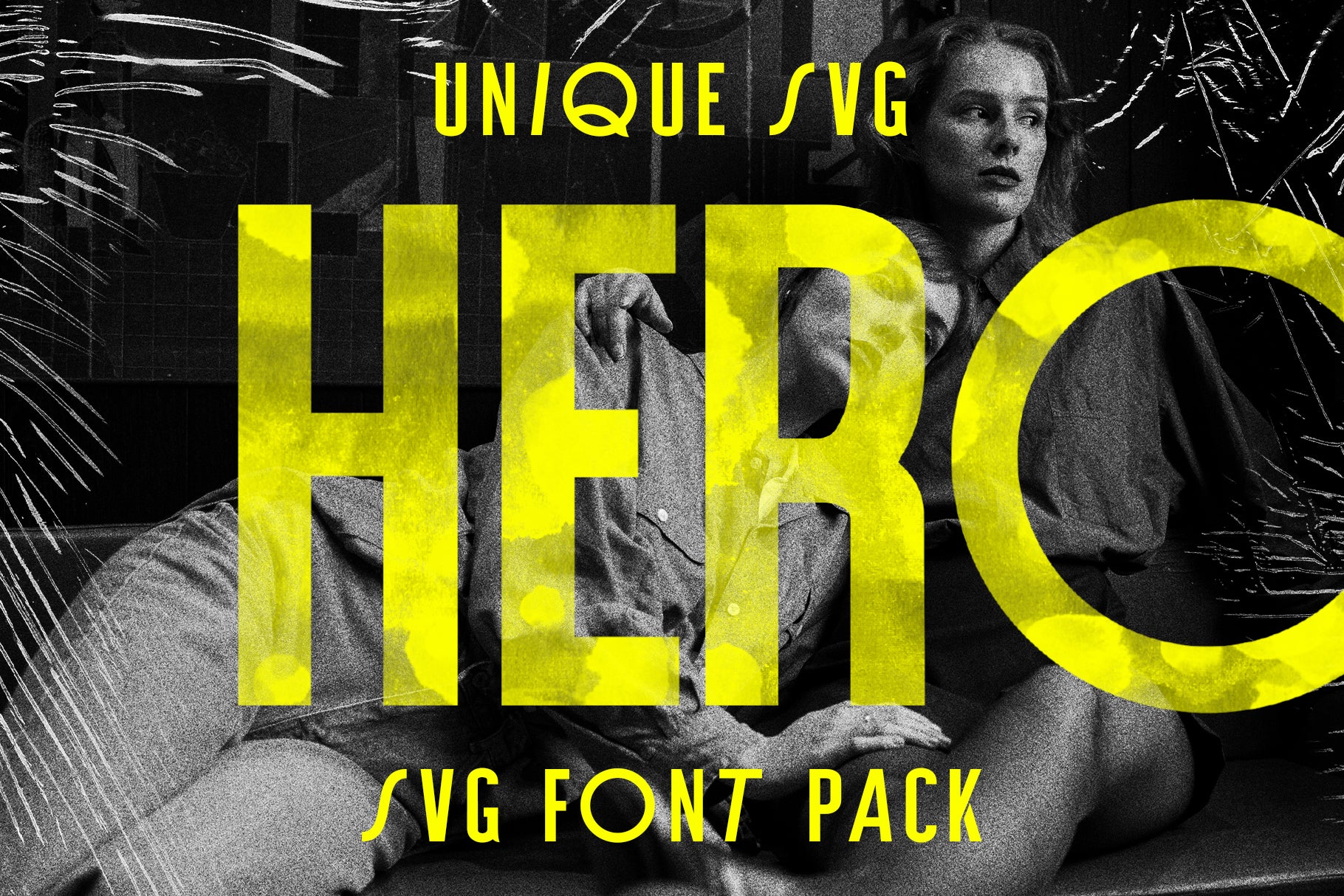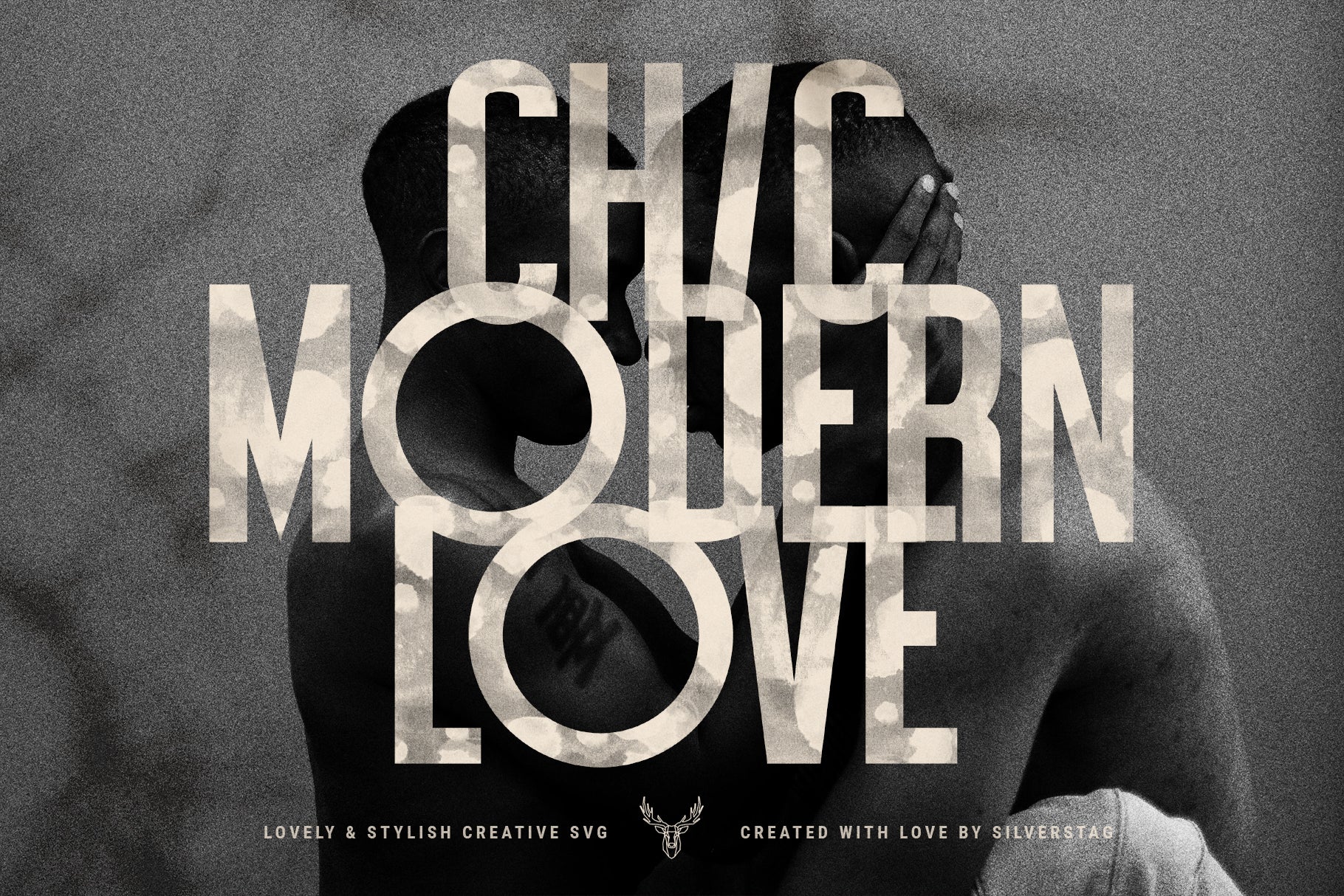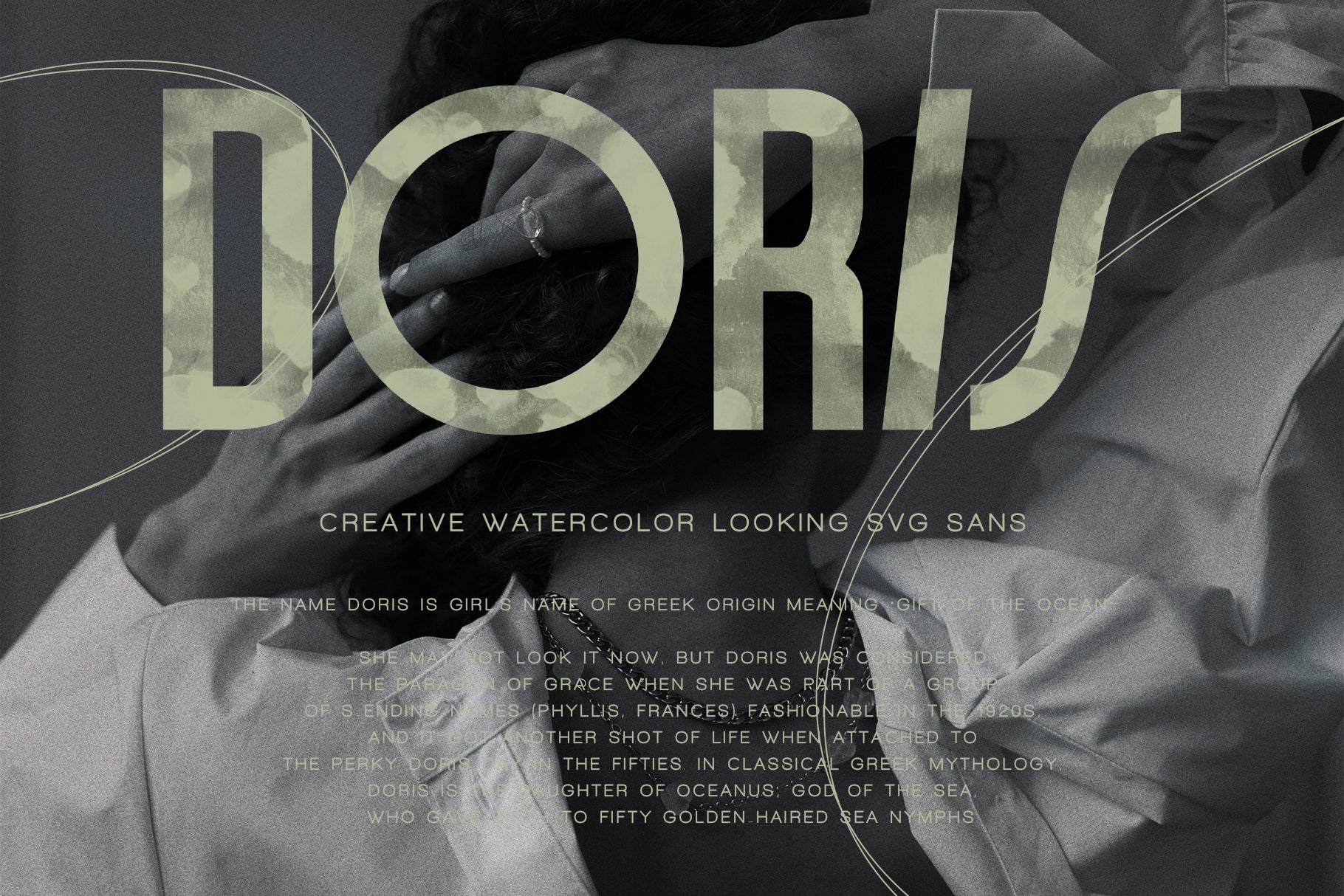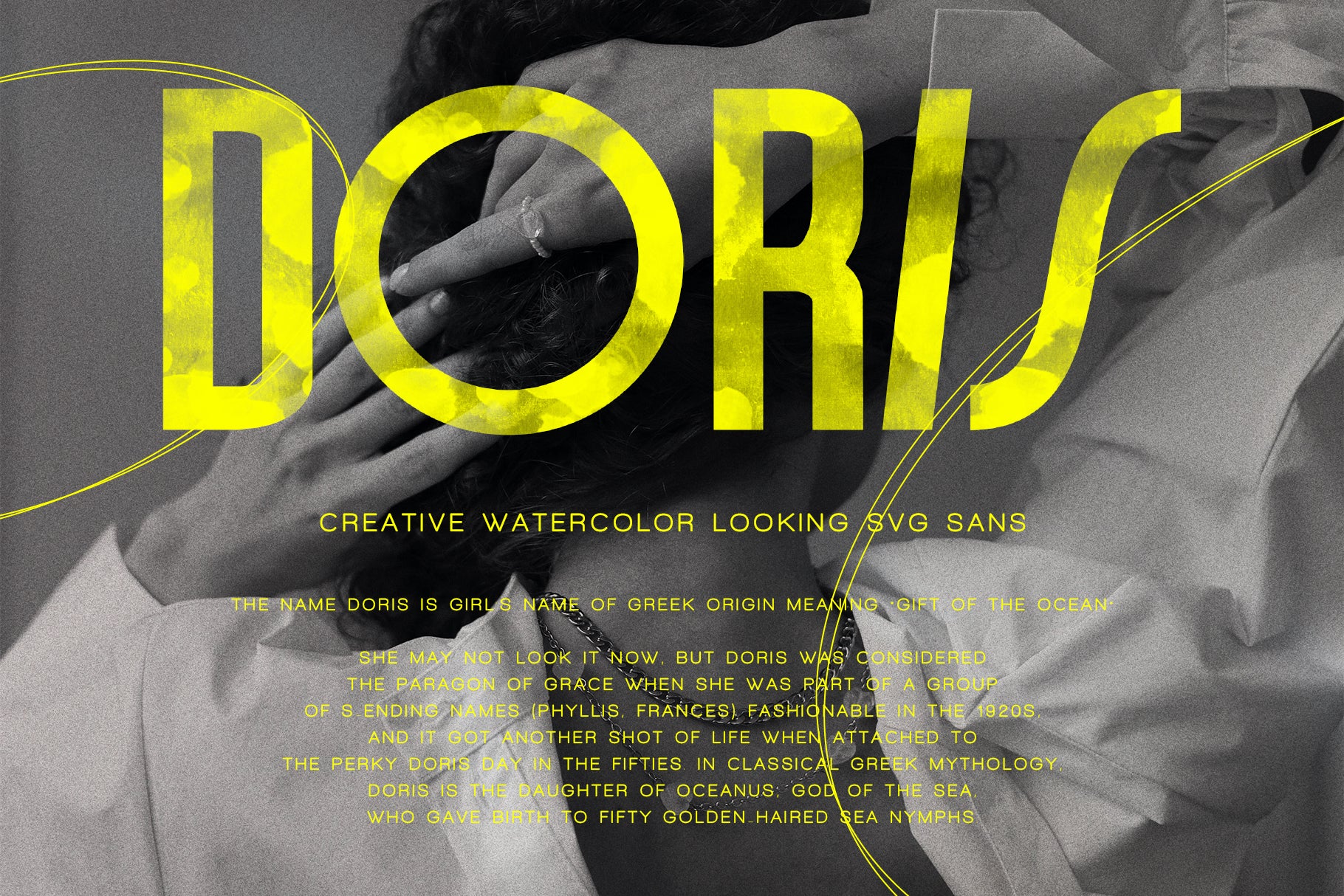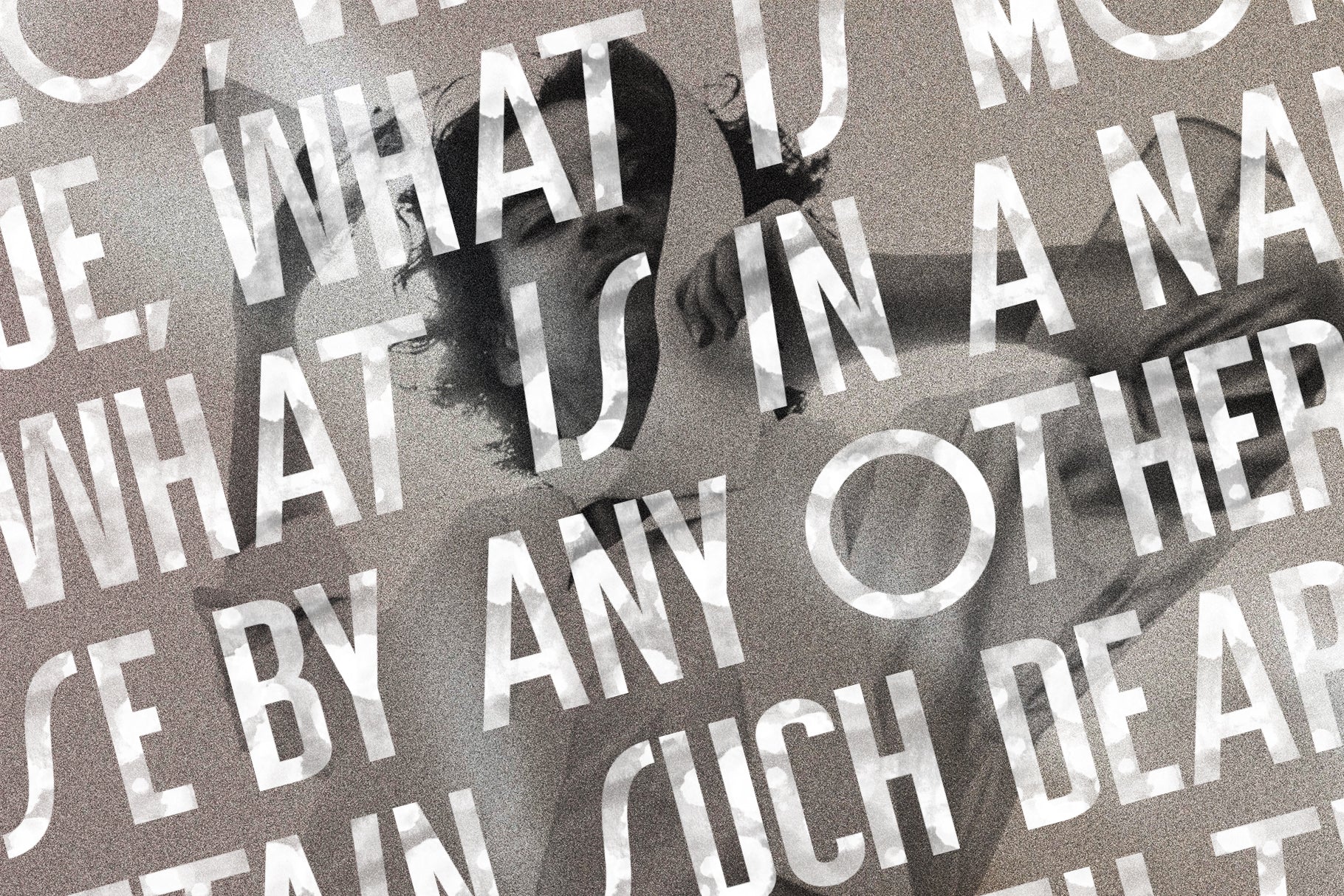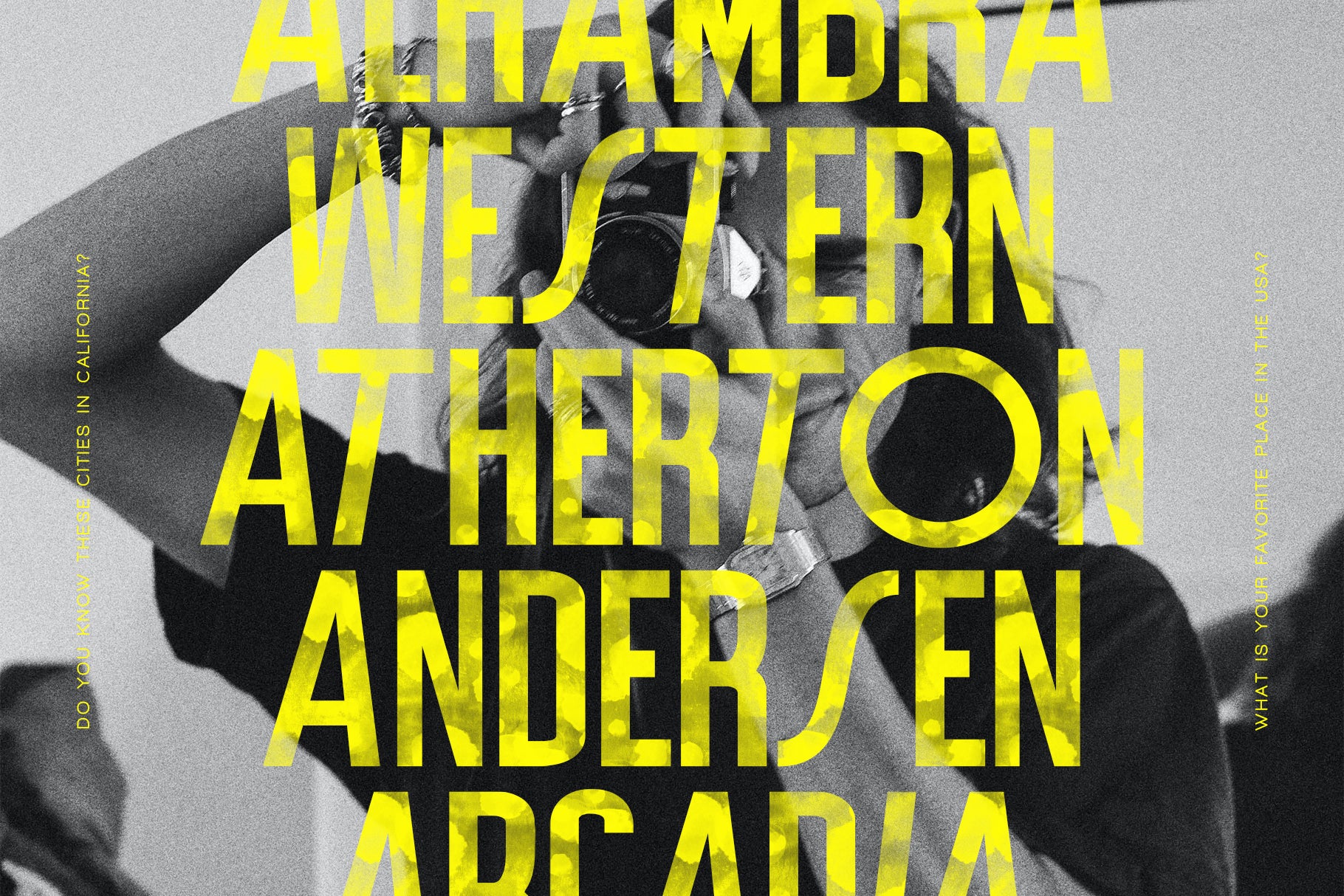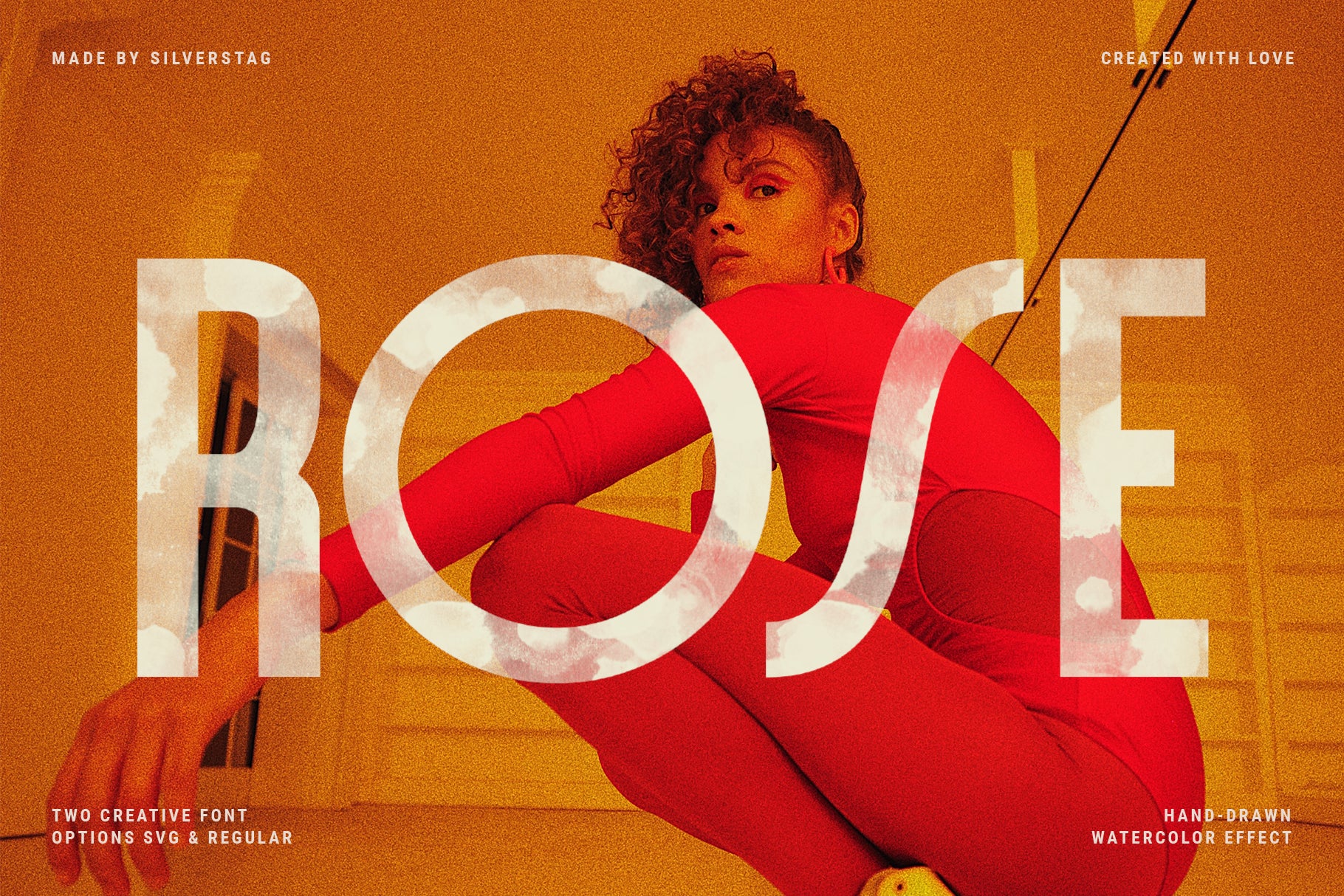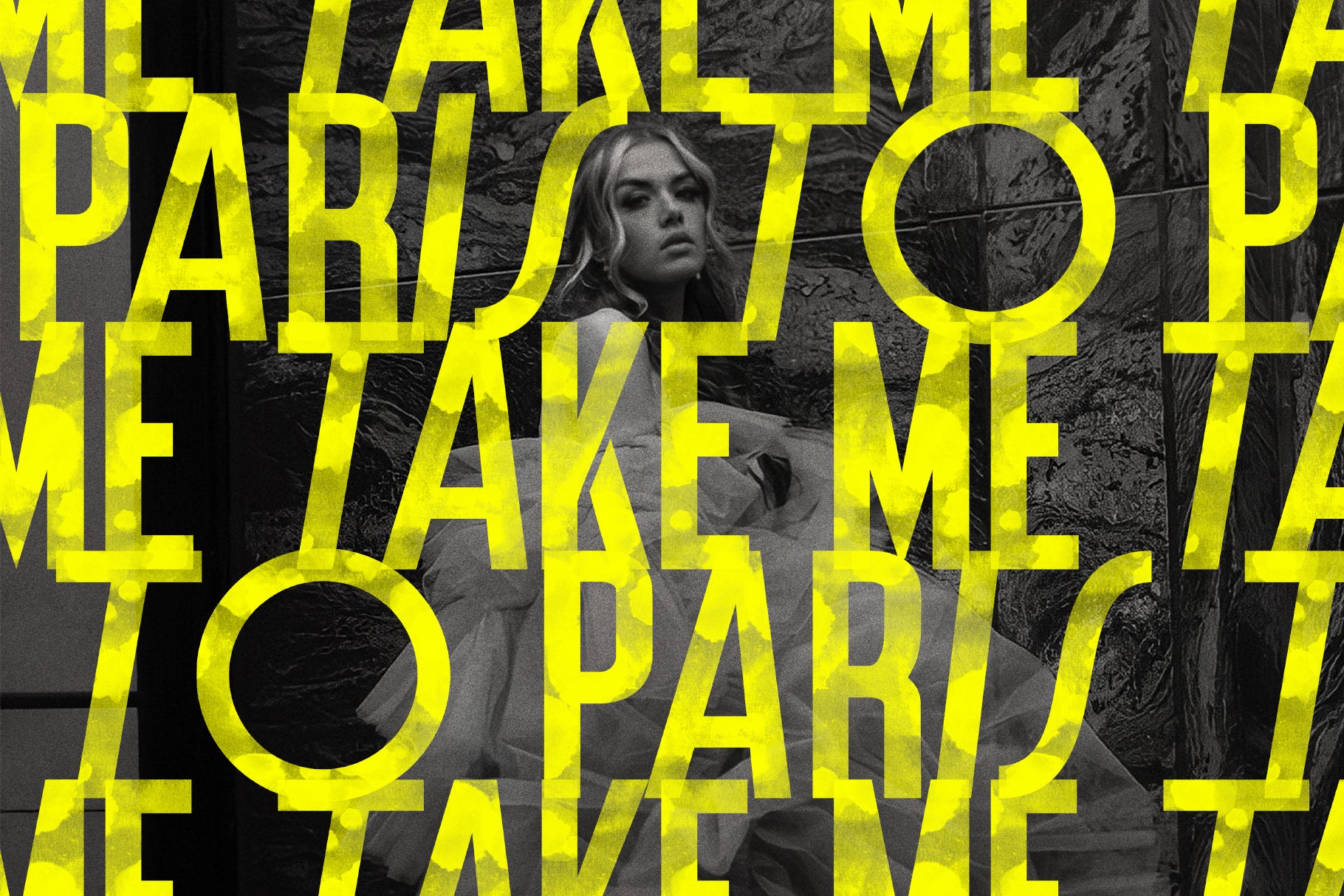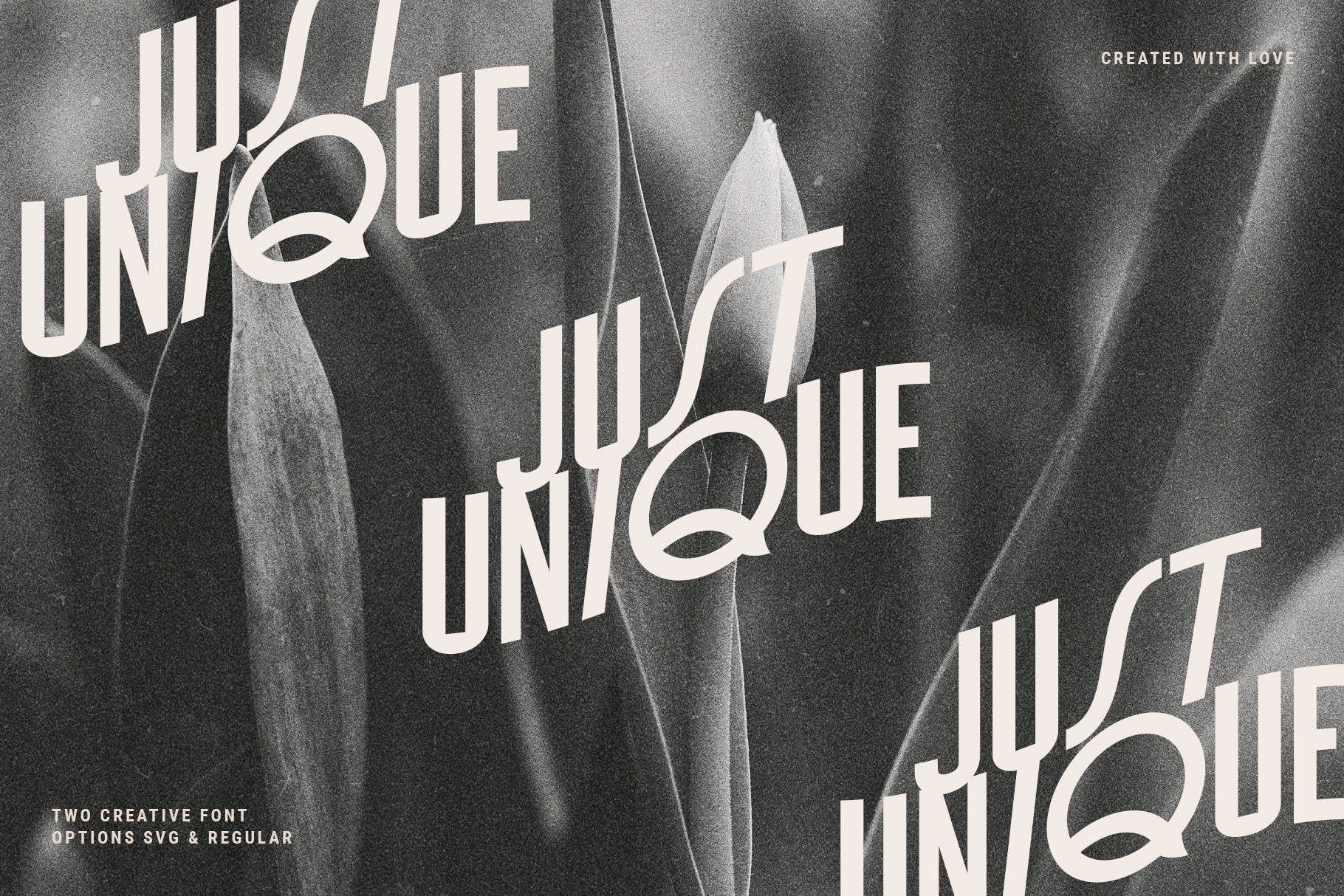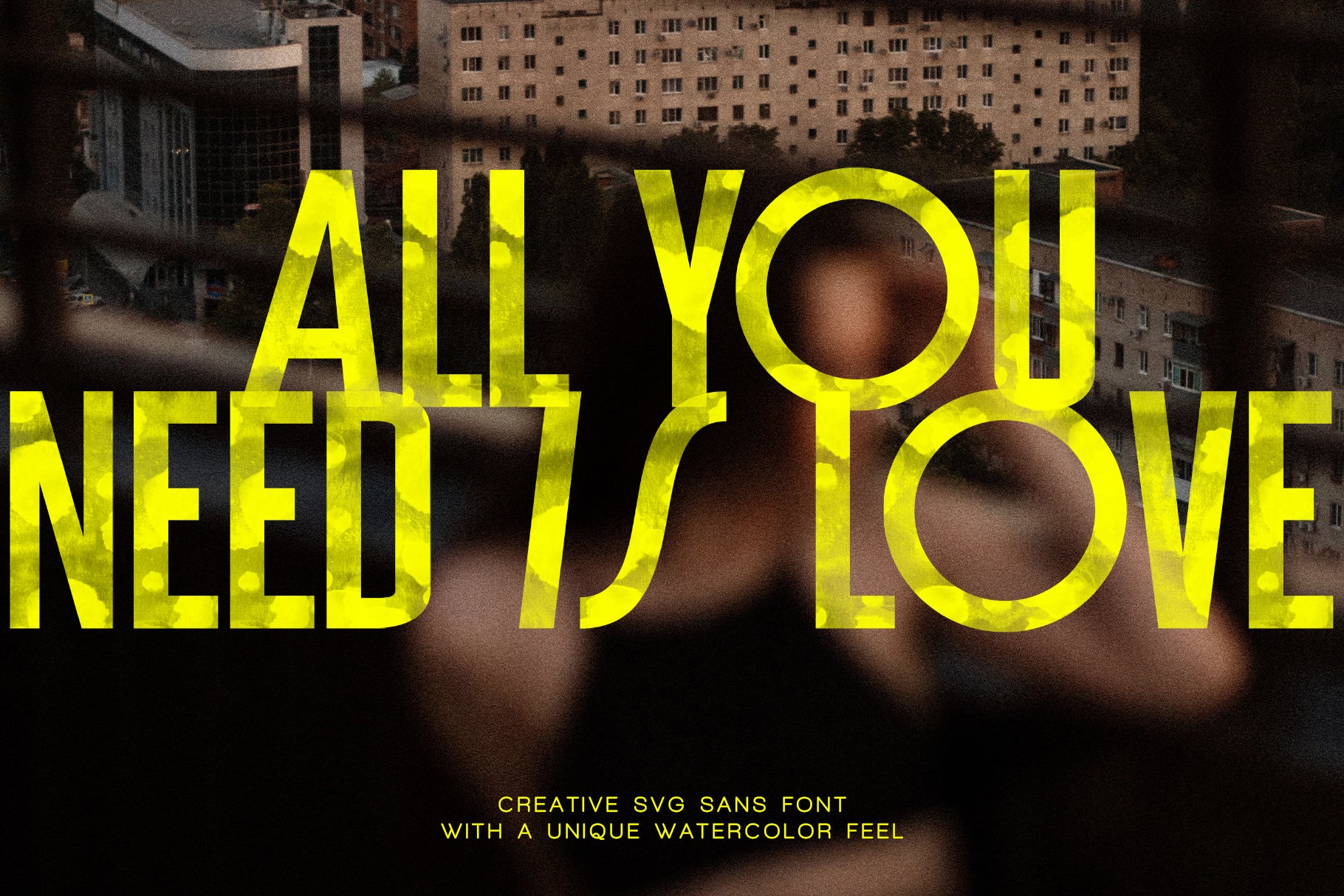
Bring fresh energy and authentic artistry to your typography with Bella Vista, a creative watercolor SVG sans font designed to make every project stand out. Carefully hand-painted to capture the true texture of watercolor, Bella Vista offers a one-of-a-kind look that’s perfect for adding depth, warmth, and a playful spirit to your designs.
This font was crafted with love and patience to deliver a genuine hand-drawn feel, making it ideal for logos, posters, packaging, social media graphics, and everything in between. With its vibrant character and expressive brushwork, Bella Vista elevates any creative project into something truly memorable.
Whether you’re creating standout branding, artistic event invitations, or bold headline designs, Bella Vista is ready to transform your ideas with its playful and colorful style.